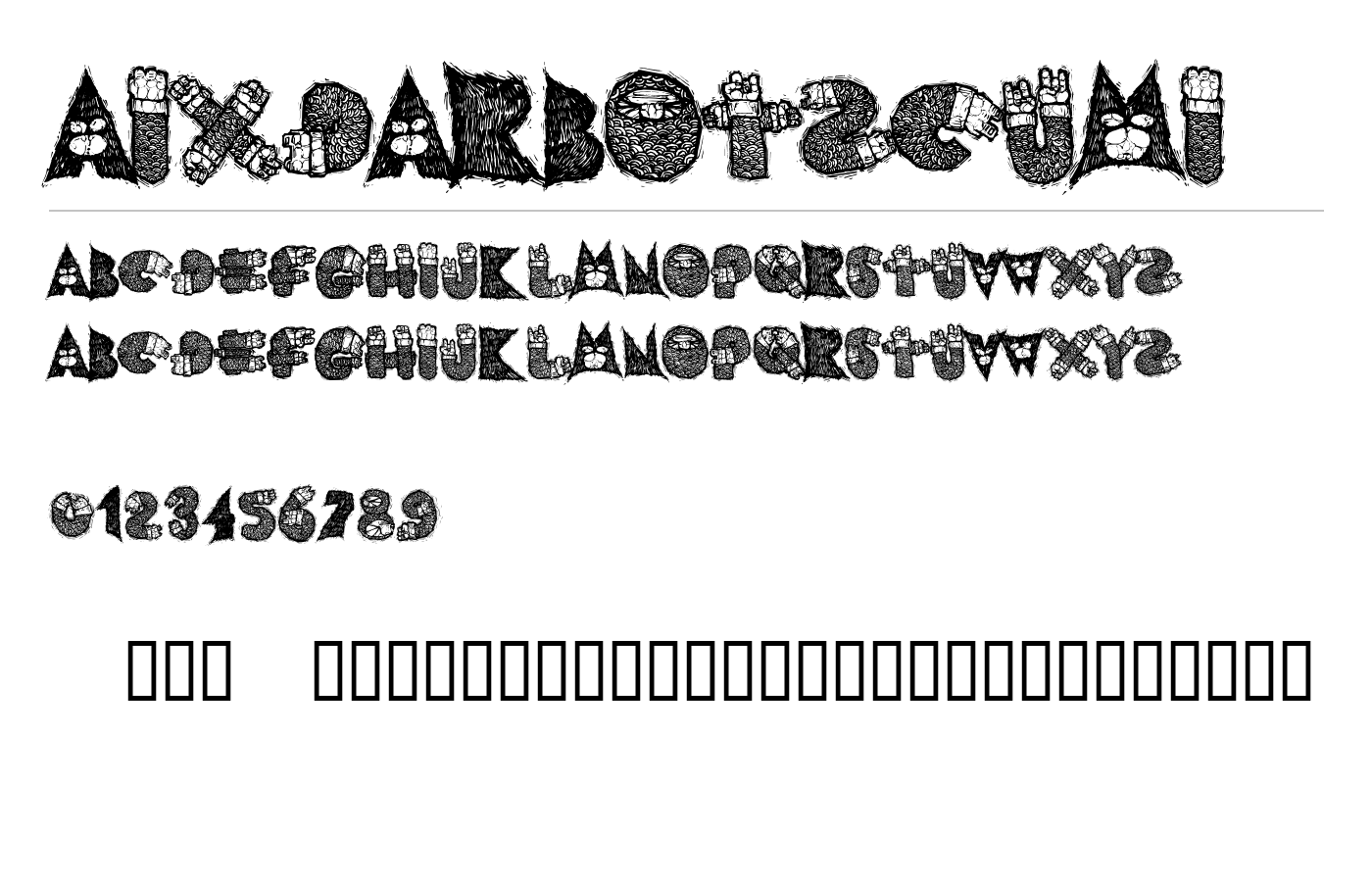
AIxDARBOTZCUMI is a bold, decorative display font featuring highly textured, hand-drawn letterforms that resemble intricate, organic patterns and stylized hands. Its playful and edgy style makes it ideal for creative projects needing a unique, eye-catching look, such as posters, album covers, or branding aimed at alternative or artistic audiences. This font’s quirky character and dense details give it a strong personality, best suited for headlines or designs where impact is key rather than body text.
AIxDARBOTZCUMI Font
About AIxDARBOTZCUMI Font